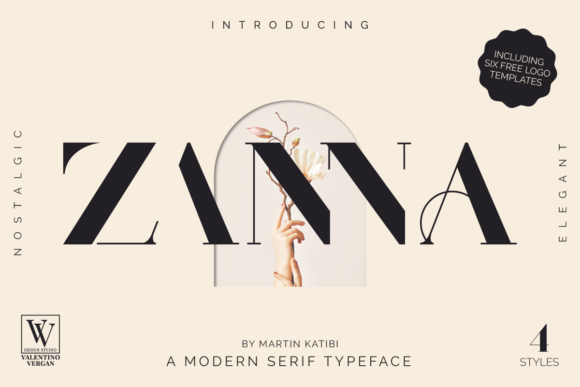
Dive into the world of timeless sophistication with Zanna Font, a serif masterpiece that exudes elegance and style. Crafted by the visionary Valentinovergan, Zanna Font is not just a collection of letters; it's an artistic expression that will transform your designs into captivating masterpieces.
With its graceful curves and refined structure, Zanna Font effortlessly transports you back to an era of vintage charm and timeless grandeur. Each character is meticulously designed to capture the essence of classic serif fonts, evoking a sense of nostalgia and sophistication that will elevate your projects to new heights.
Step into a world where your words come alive, where every letter dances with beauty and precision. Zanna Font's versatile nature makes it the perfect choice for a wide range of design projects. Create stunning posters that speak volumes, design flyers that demand attention, or craft print materials that leave a lasting impression. The possibilities are endless, and Zanna Font is your artistic guide.
With Zanna Font at your disposal, you'll discover a font that effortlessly blends tradition and modernity. Its timeless design ensures that your projects will stand the test of time, while its contemporary touches add a hint of modern flair. Experience the magic of a font that seamlessly merges the old and the new, creating designs that are both classic and captivating.
Zanna Font is more than just a collection of glyphs; it's an invitation to embark on a creative journey. Let your imagination soar as you explore the endless possibilities that this font presents. From elegant logos that exude vintage charm to captivating headlines that demand attention, Zanna Font is your ultimate creative companion.
Join the ranks of design enthusiasts who have discovered the transformative power of Zanna Font. Experience the joy of creating designs that resonate with beauty, elegance, and timeless sophistication. Zanna Font is more than just a font; it's an investment in your creative future. Embrace the beauty of classic typography and let Zanna Font guide you towards design excellence.